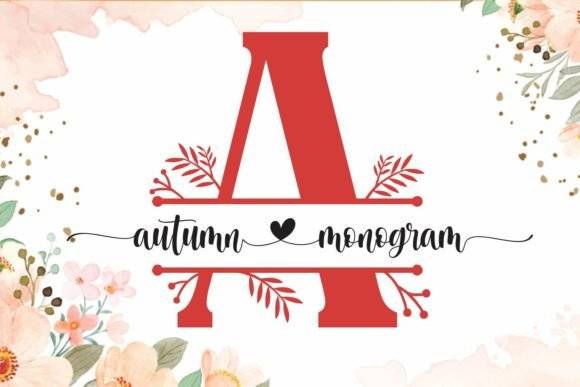
Autumn Monogram Font for Cricut, Silhouette and Printable Designs
Autumn Monogram is a stylistic font crafted specifically for monogram creation and fall-inspired designs. Built to work seamlessly with Cricut and Silhouette machines, it brings a seasonal aesthetic to your custom projects, blending traditional elegance with autumn warmth. With its intricate curves and warm hues, this font elevates any project, making it ideal for invitations, home decor, and personalized gifts. Additionally, it pairs beautifully with other elements, allowing designers to create harmonious layouts. Consider using it alongside the backstage pass font for designs to add a unique touch that captures attention.
Whether you’re making personalized home decor, greeting cards, or gift tags, this font ensures each piece carries a touch of seasonal sophistication ideal for both cutting and printing applications.
- Fall-themed monogram decor and door signs
- Printable greeting cards and stationery
- Custom apparel with autumn motifs
- Gift tags, labels, and packaging
- Cuttable designs for vinyl, paper, and wood
- Beautiful monogram styling with seasonal flair
- Optimized for print and cut compatibility
- Versatile for both digital and handmade crafts